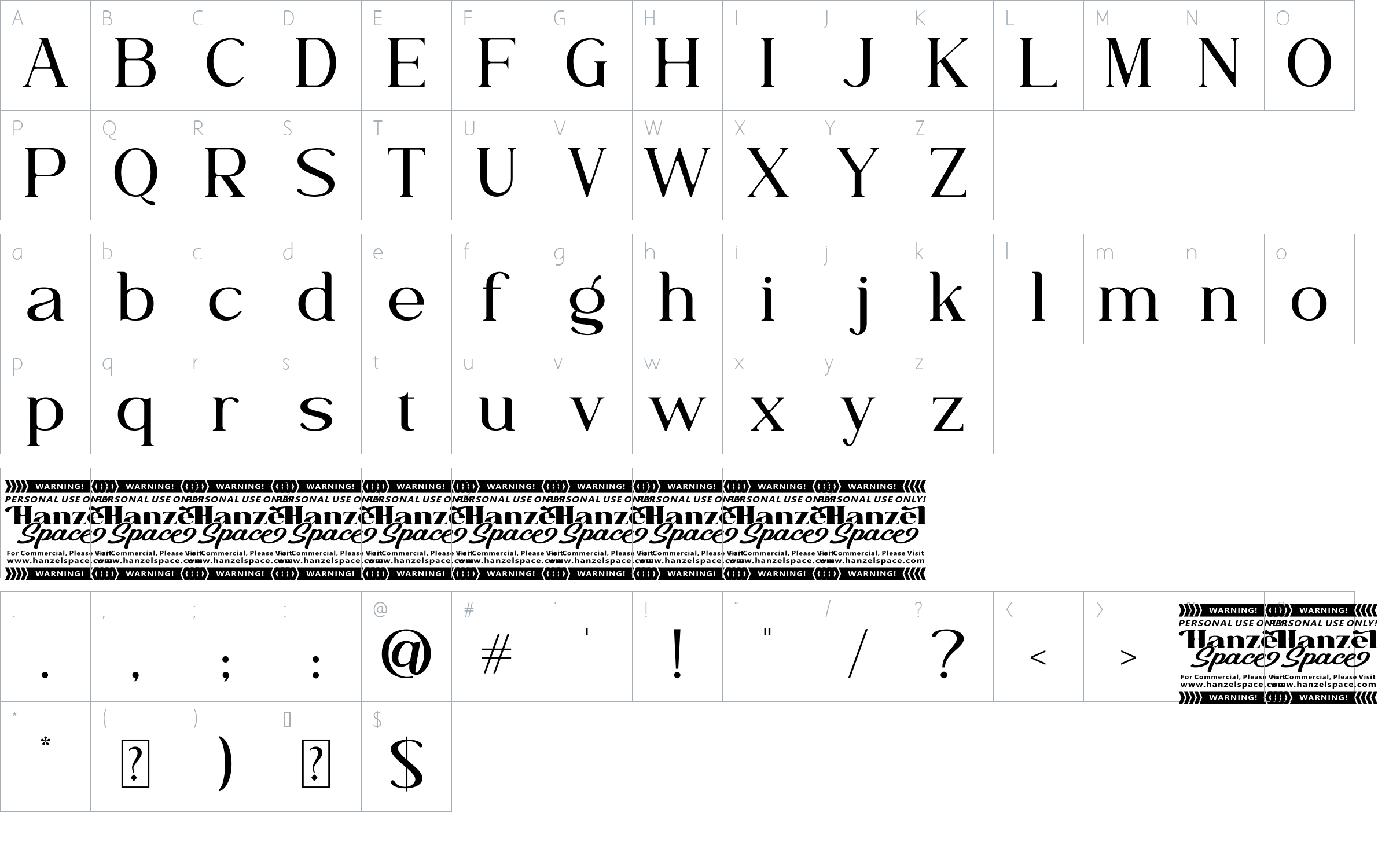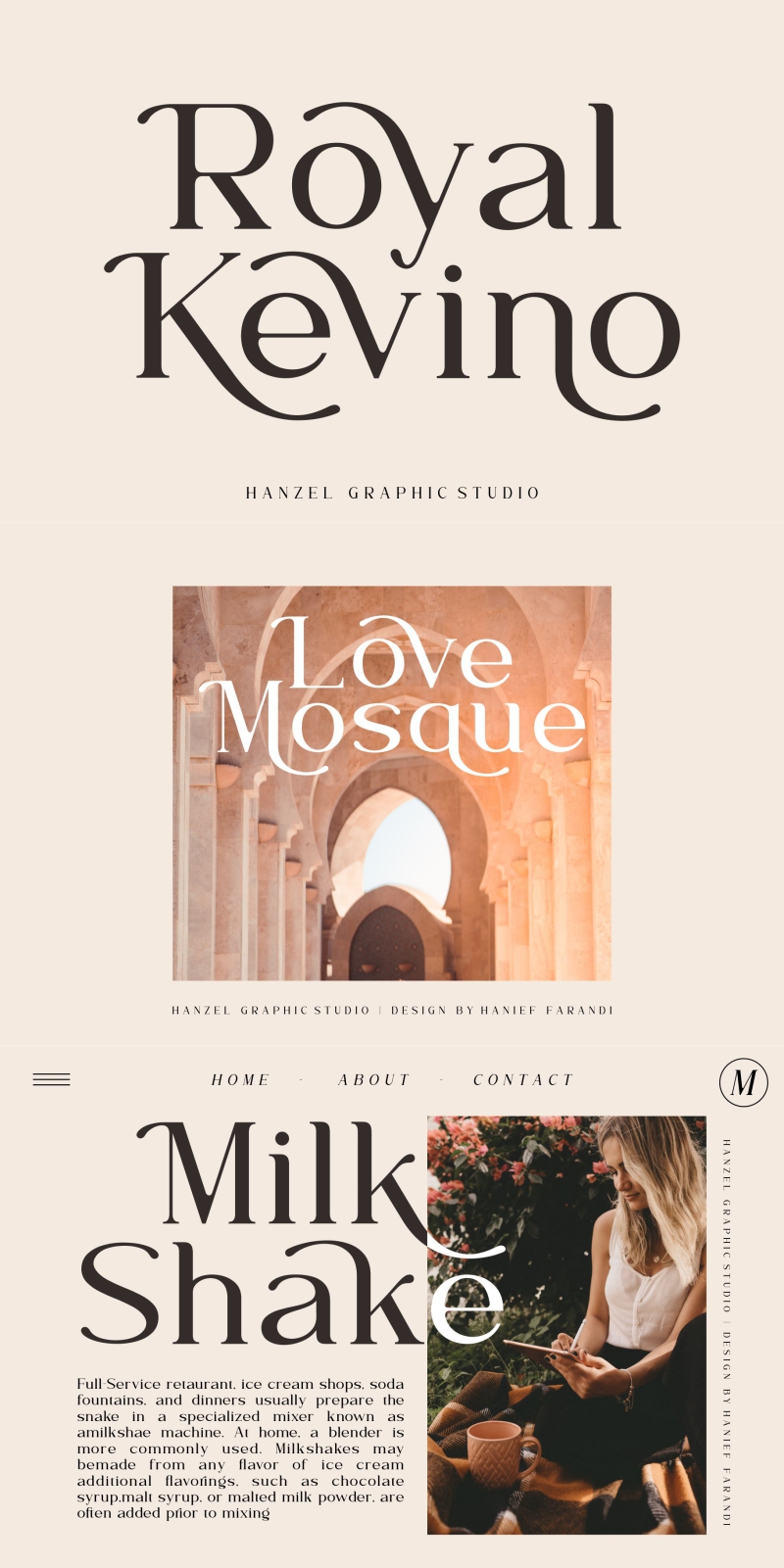
Royal Kevino Font
About Royal Kevino
Introducing Royal Kevino – Serif Font.
This modern serif typeface features serifs. Perfect for gorgeous logos & titles, Royal Kevino will pair beautifully with many fonts and work well with whatever project you’re working on.
• Standard Ligatures
Royal Kevino Serif Font
This modern serif typeface features serifs. Perfect for gorgeous logos & titles, Royal Kevino will pair beautifully with many fonts and work well with whatever project you’re working on.